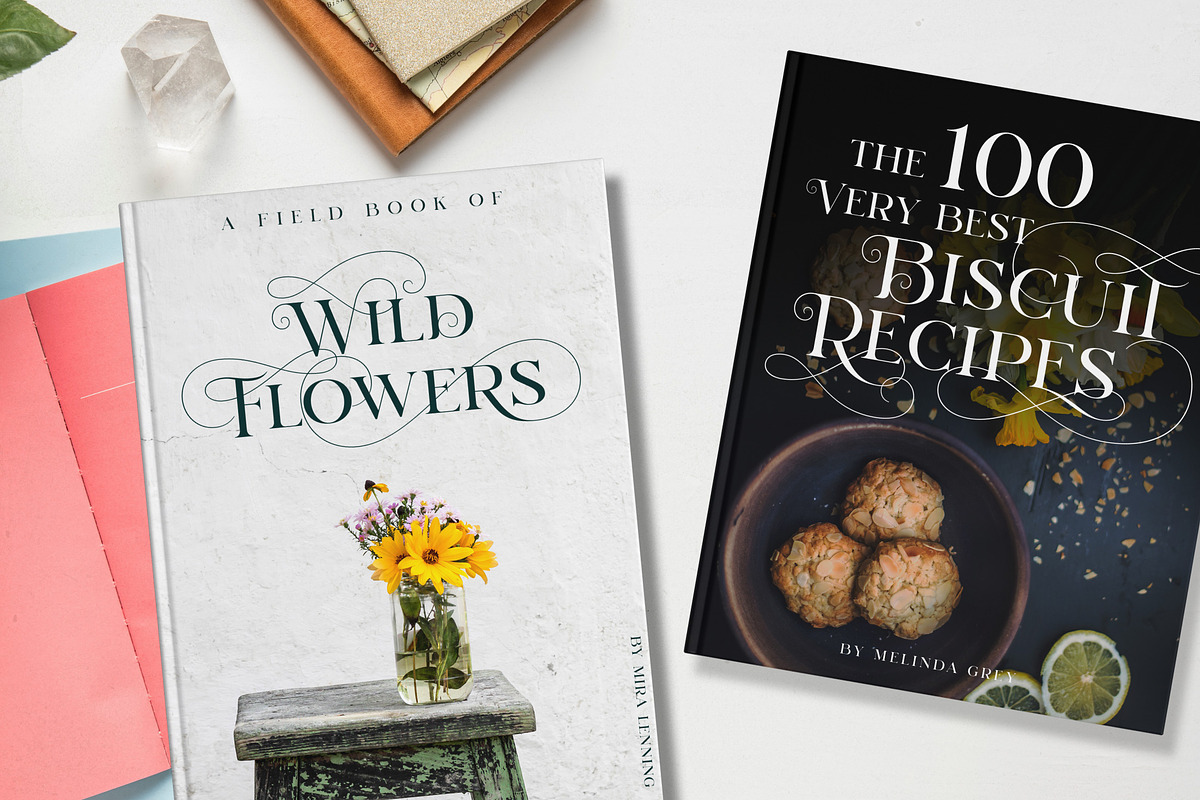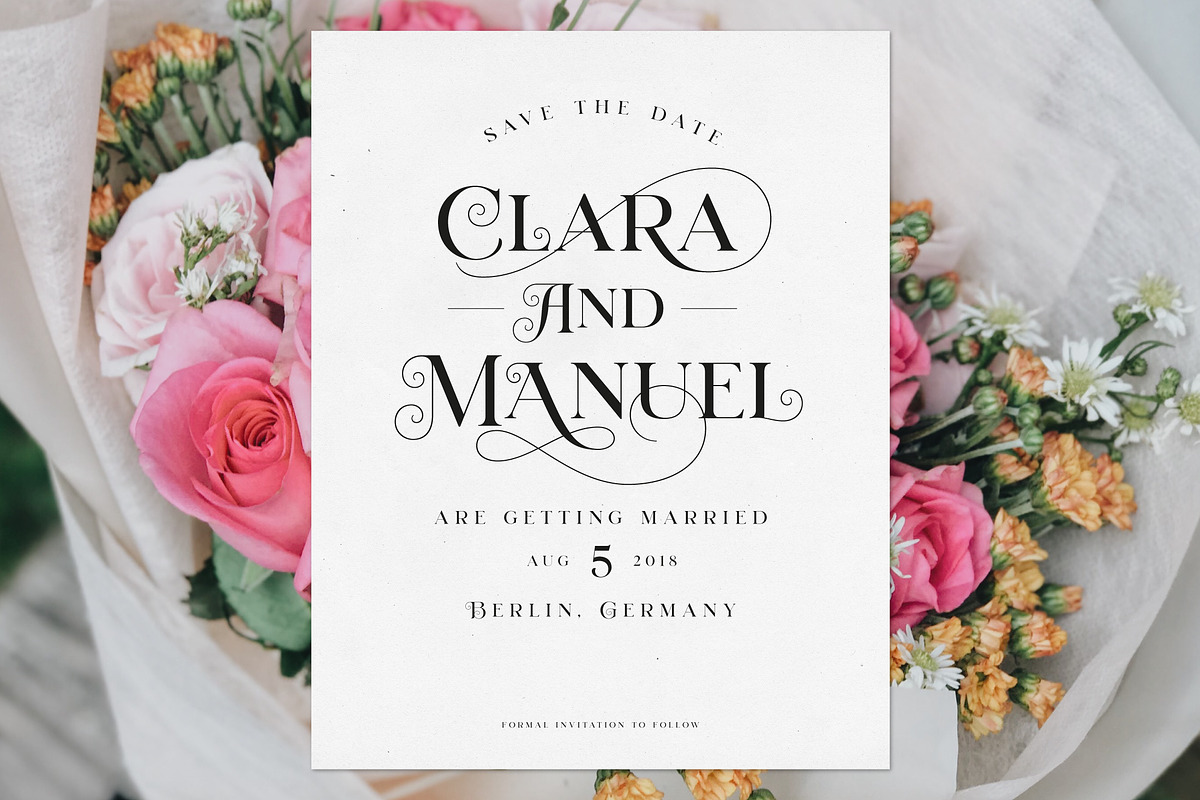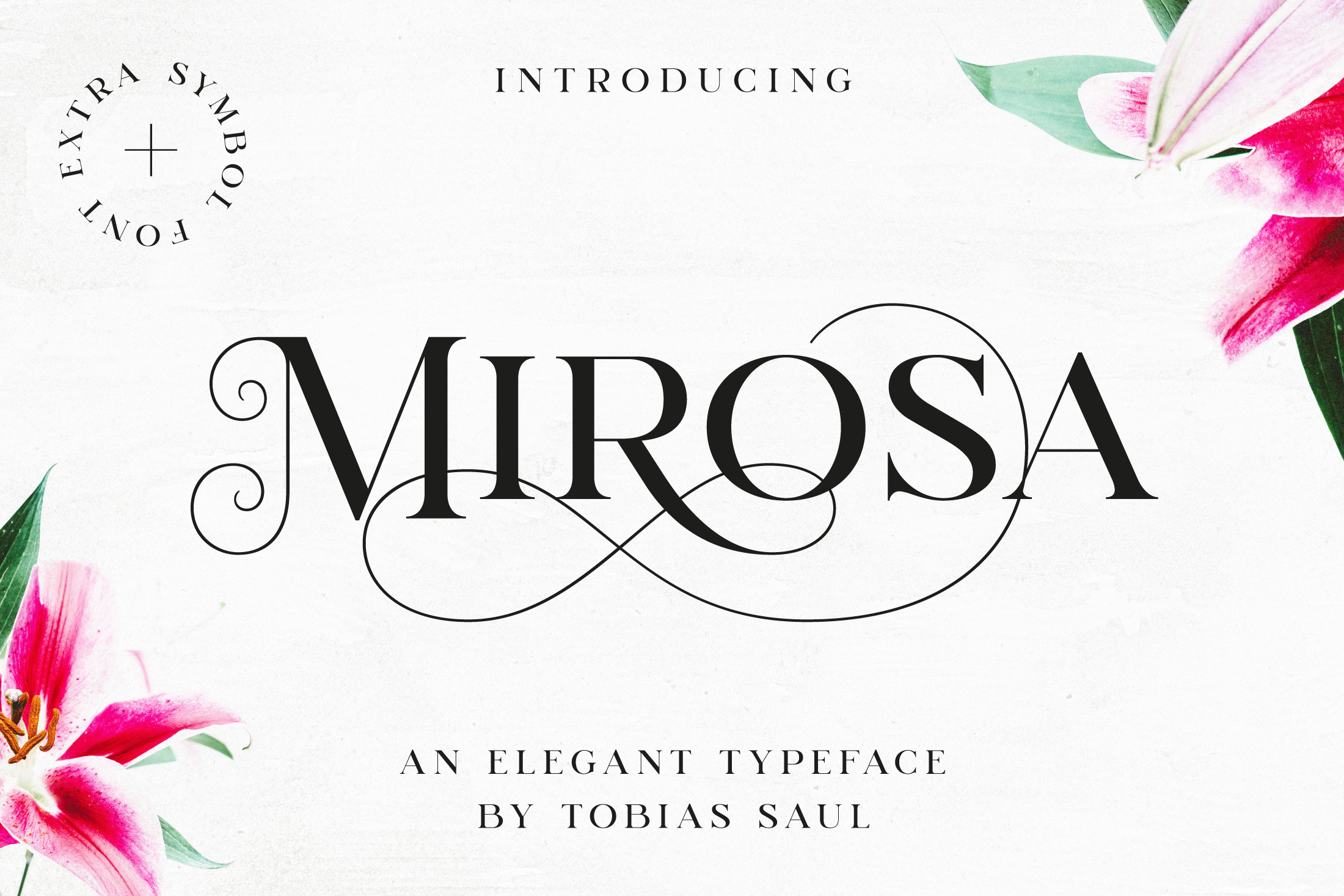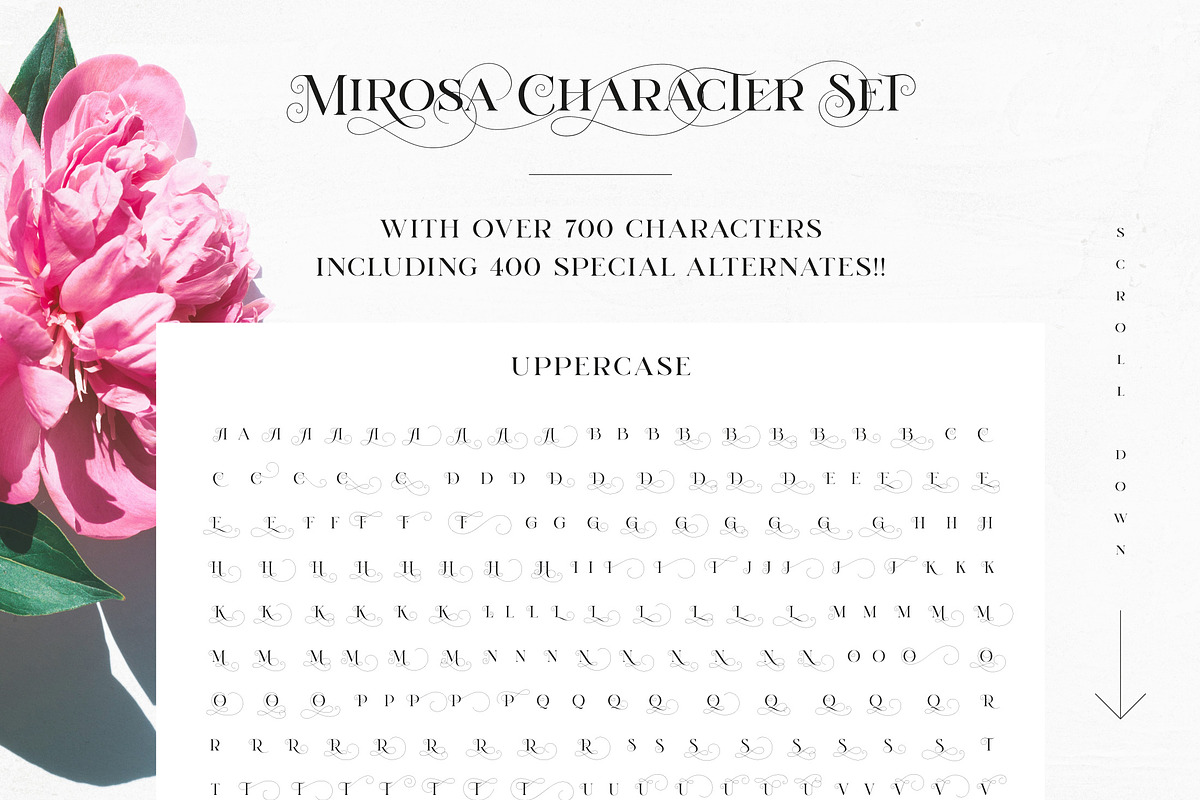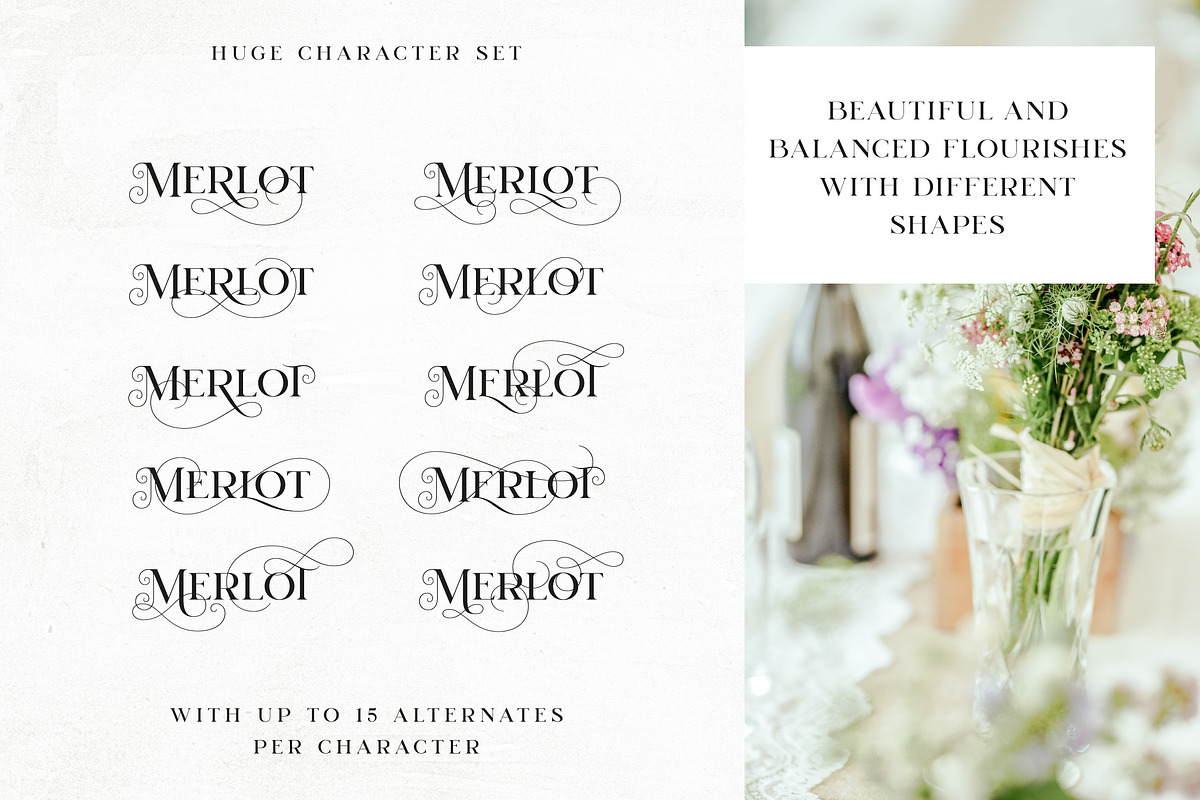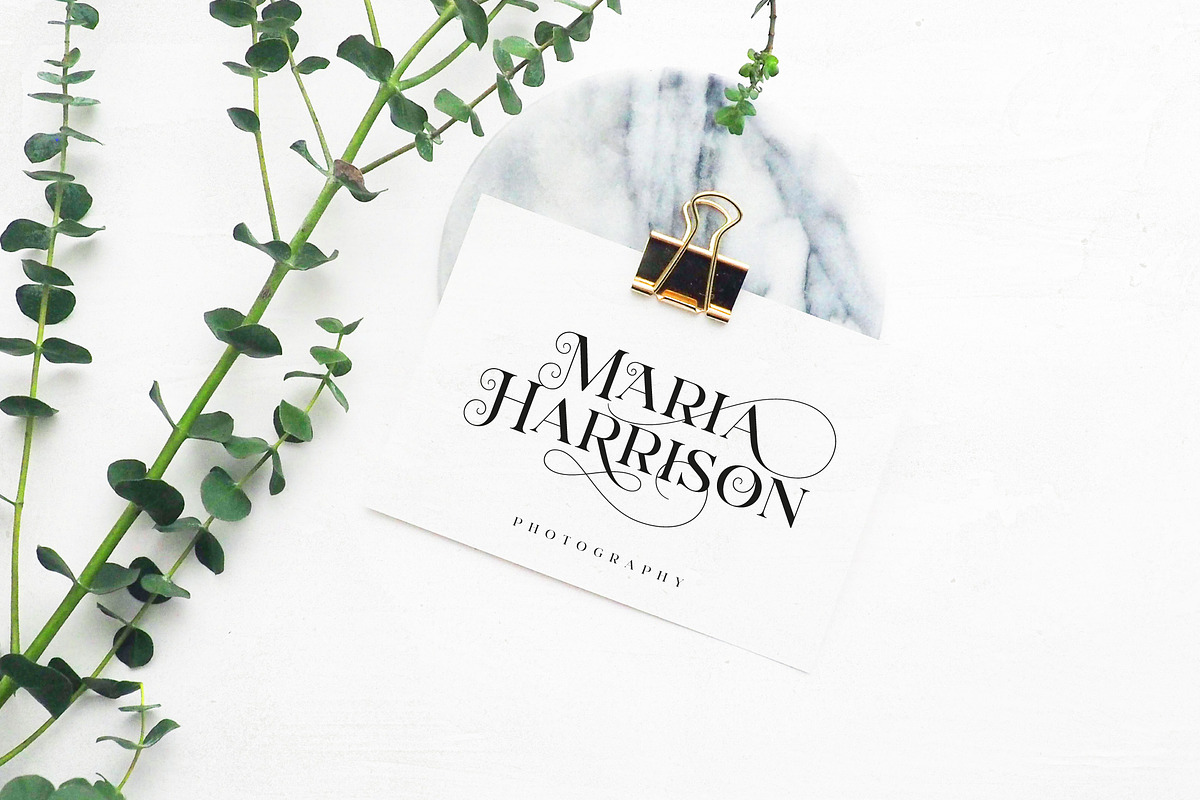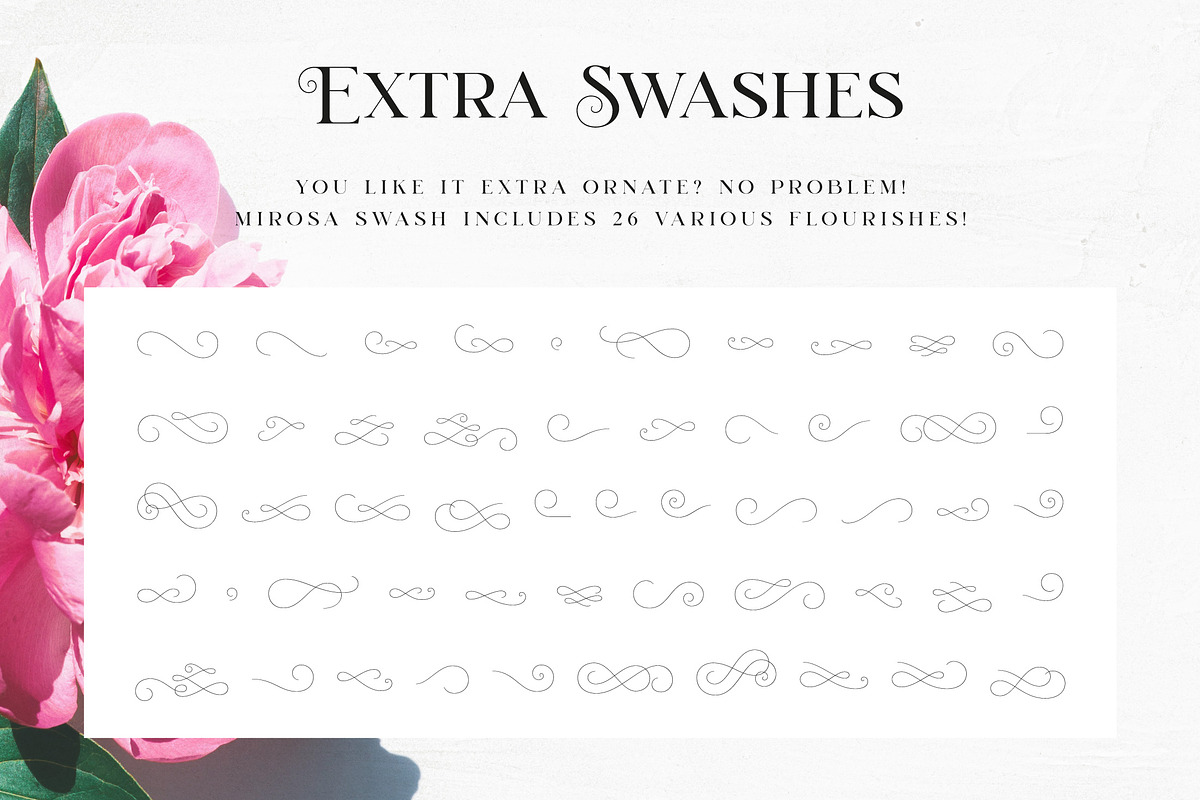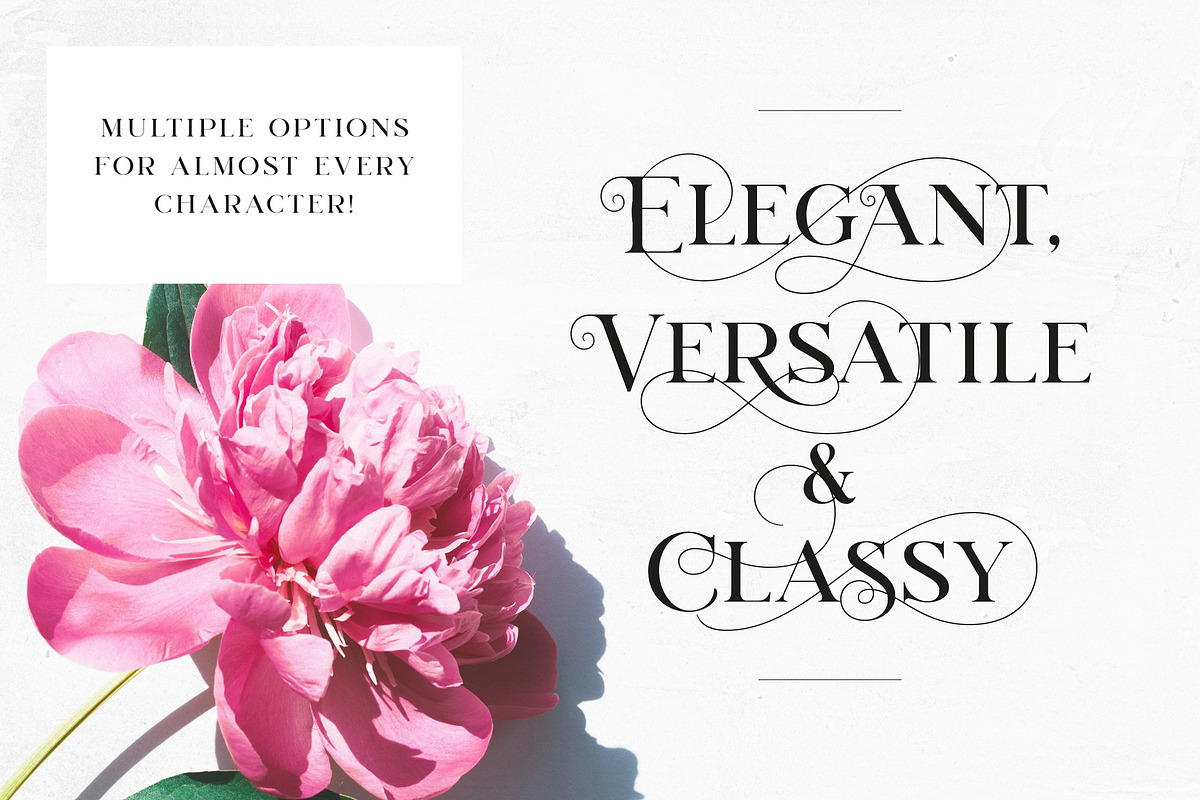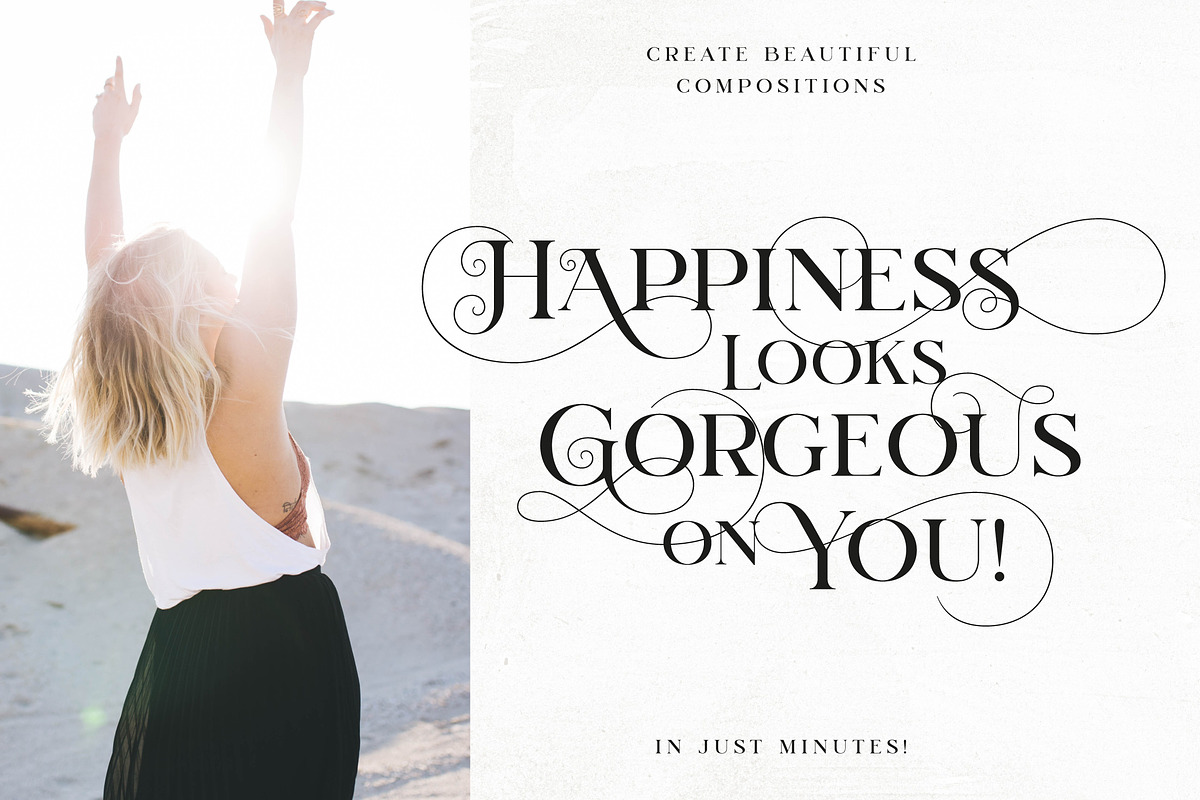
Mirosa Elegant Font
MIROSA is a modern elegant font typeface with beauty in every single letter. It contains bigger initial letters and a very huge character set with more than 400 alternates!! Mirosa allows you to create beautiful headlines, logos, and titles in just minutes. But that’s not all! Additionally, it comes with a second symbol font with 26 extra swashes. Furthermore, I included a font guide to make sure you get the most out of this product.
- Character set A-Z with special uppercase letters
- Over 400 stylistic Alternates